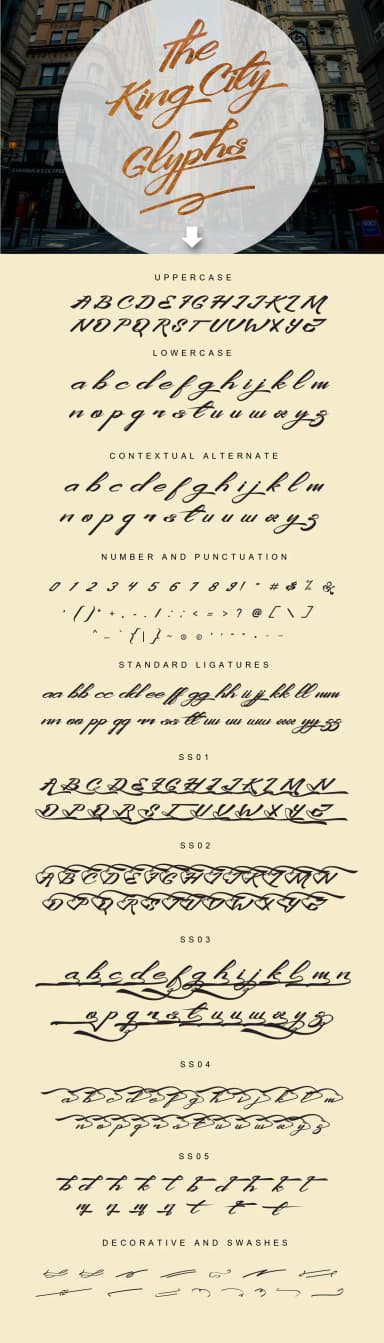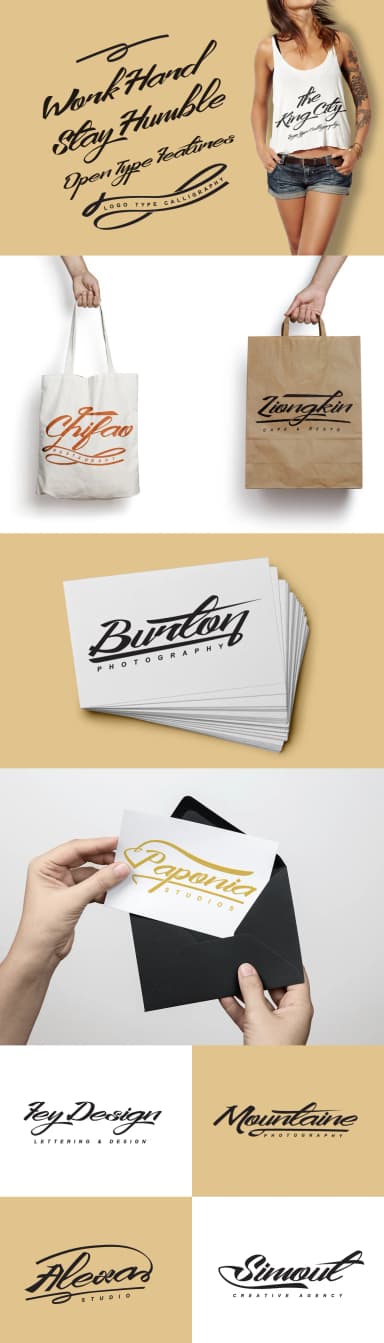
King City by feydesign is a handwritten script font with a logotype sensibility, distinguished by its generous swashes and decorative flourishes that bring authentic character to every project. This font excels when applied to projects requiring vintage-inspired branding that feels both artisanal and contemporary. The script's extensive ornamentation makes it ideal for luxury cosmetics packaging, where elegant letterforms enhance product positioning and attract discerning customers, or for vintage-style cafΓ© signage and restaurant menus that command attention through visual personality.
Wedding invitation suites and formal event stationery benefit from King City's natural flow and ornamental character, establishing a tone of sophistication and care. Boutique fashion labels can leverage its abundant swashes to create distinctive brand marks that set their products apart on retail shelves. The font delivers the handcrafted aesthetic that designers seek when building high-end product labels or curating custom packaging that reflects a brand's commitment to quality.
Its logotype-inspired construction allows it to function effectively as a standalone branding element while maintaining legibility across diverse applications and scales. The extensive decorative variations ensure that each letter brings intentional visual interest without compromising readability. Get King City on Creative Fabrica and bring refined, vintage-inspired character to your brand identity and design projects.
- Elegant, Flowing, King City Logo Type
King City Font is a script font that shines as a display or heading face. Pair it with a clean sans-serif or serif font for body text β the contrast creates a clear hierarchy while the two styles stay balanced and easy to read.
King City Font